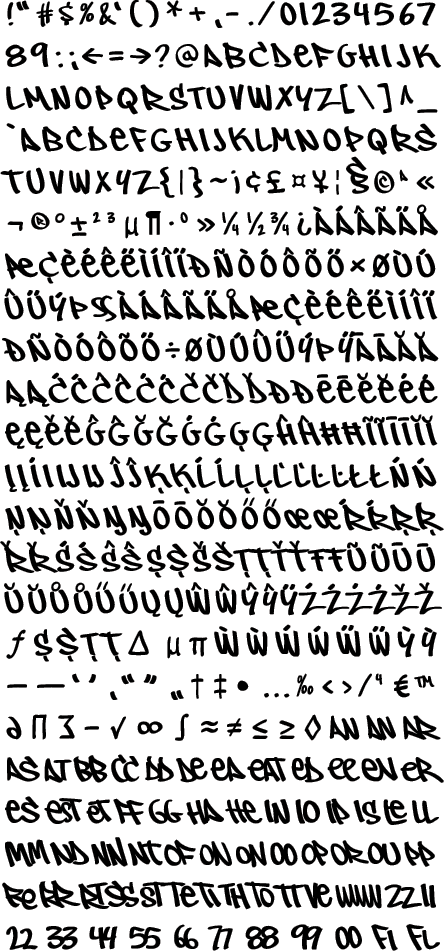
owned
Owned has the look of marker scrawl before the cops arrived. Realistic ligatures, and tons of them, accentuate the inconsistencies of writing at speed. The variation of weight and angle of the strokes give Owned a sense of urgency. This is not your gallery pretty graffiti font. This is pure vandalism.